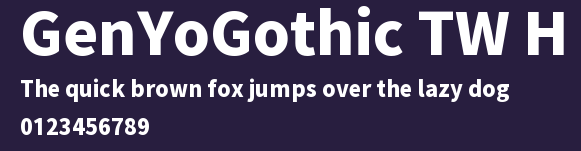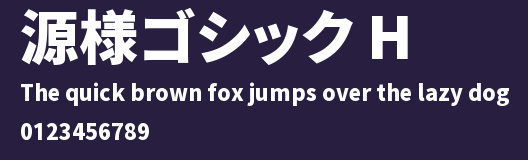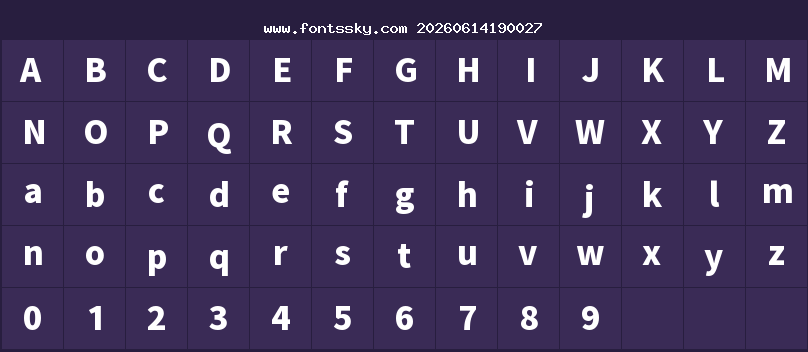
About GenYoGothic TW H.ttc [TrueType Collection]
GenYoGothic TW H.ttc [TrueType Collection] is a modern, elegant sans-serif font designed for ultimate readability and visual harmony. Perfect for branding, headlines, web design, and print materials.